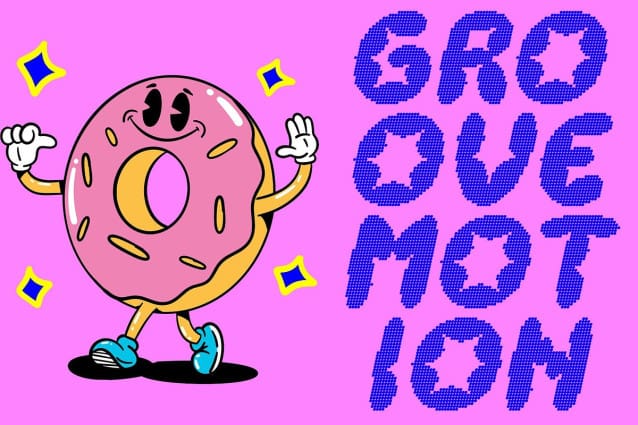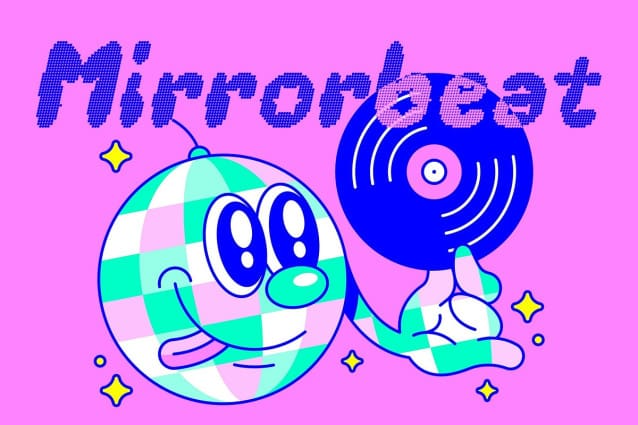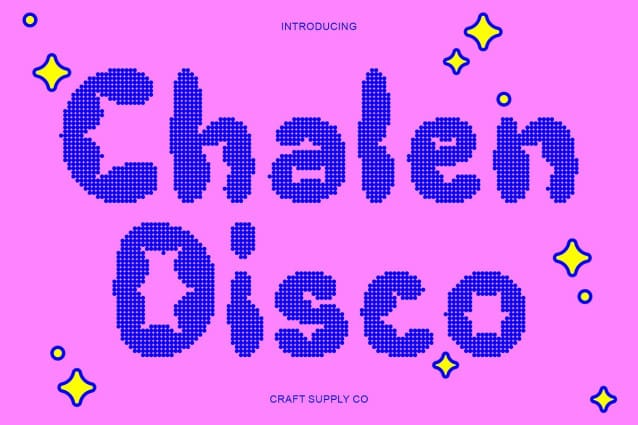
Chalen Disco Font
Chalen Disco Font : Where Retro Fun Meets Modern Energy.Rounded Bubble Display Font with Disco Effect This is a rounded bubble display font infused with a sparkling disco effect, radiating youthful energy and playful charm. Its bold and curvy letterforms capture the essence of retro fun, while the shimmering disco texture adds a touch of modern vibrancy.
Playful Shapes for Joyful Expression Every curve in this font is crafted to convey movement and joy. The soft, rounded forms bring a sense of approachability and lightheartedness, making it perfect for designs that want to communicate positivity and excitement. Its bubbly structure adds visual rhythm, creating a captivating flow that enhances any headline or creative layout.
Retro Vibes with a Modern Twist Chalen Disco takes inspiration from the colorful and carefree spirit of the 70s disco era while embracing a clean, contemporary execution. This balance between nostalgia and freshness gives your design a timeless yet trendy appeal. Whether used for music covers, party invitations, or social media graphics, it instantly transports viewers to a world of light, color, and rhythm.
Perfect for Eye-Catching Displays Designed for impact, thrives in large-scale applications such as posters, branding, and event promotions. Its bold weight and disco-inspired shine ensure every word pops off the page, bringing energy and personality to your visuals. Let this font light up your designs with a burst of fun, rhythm, and sparkle.